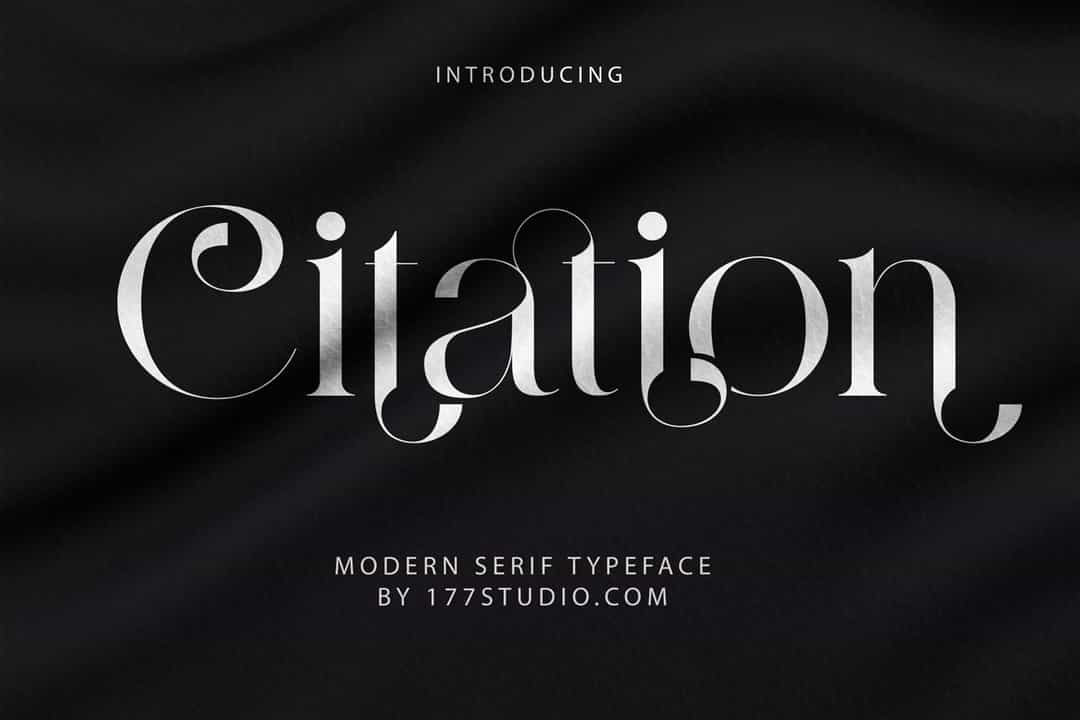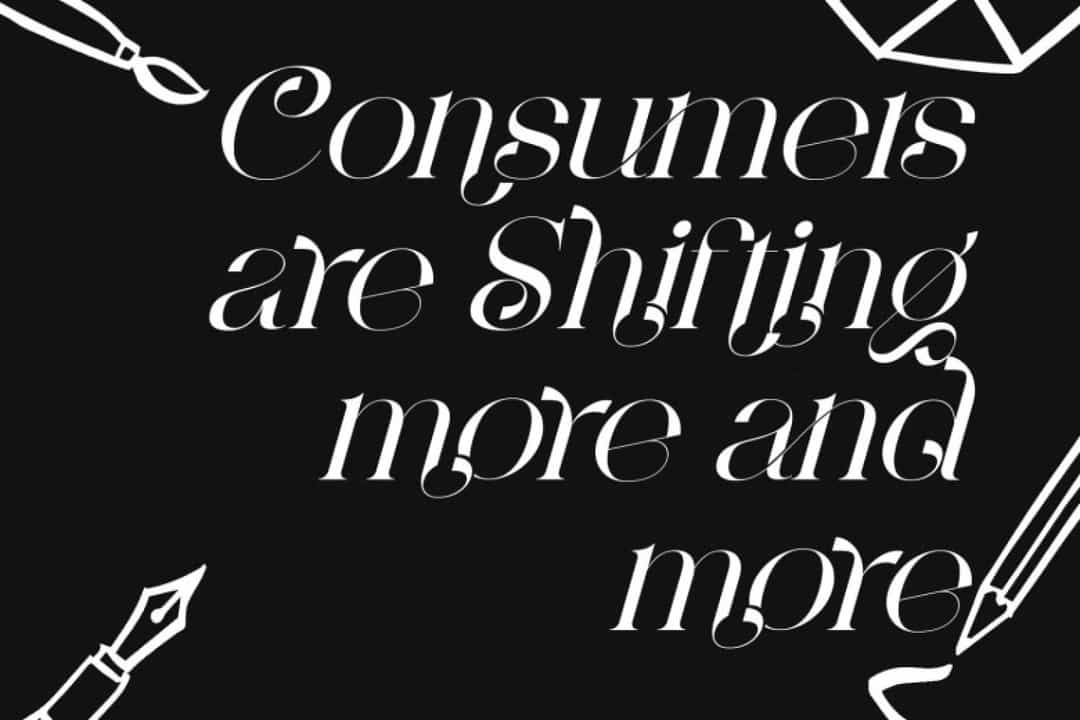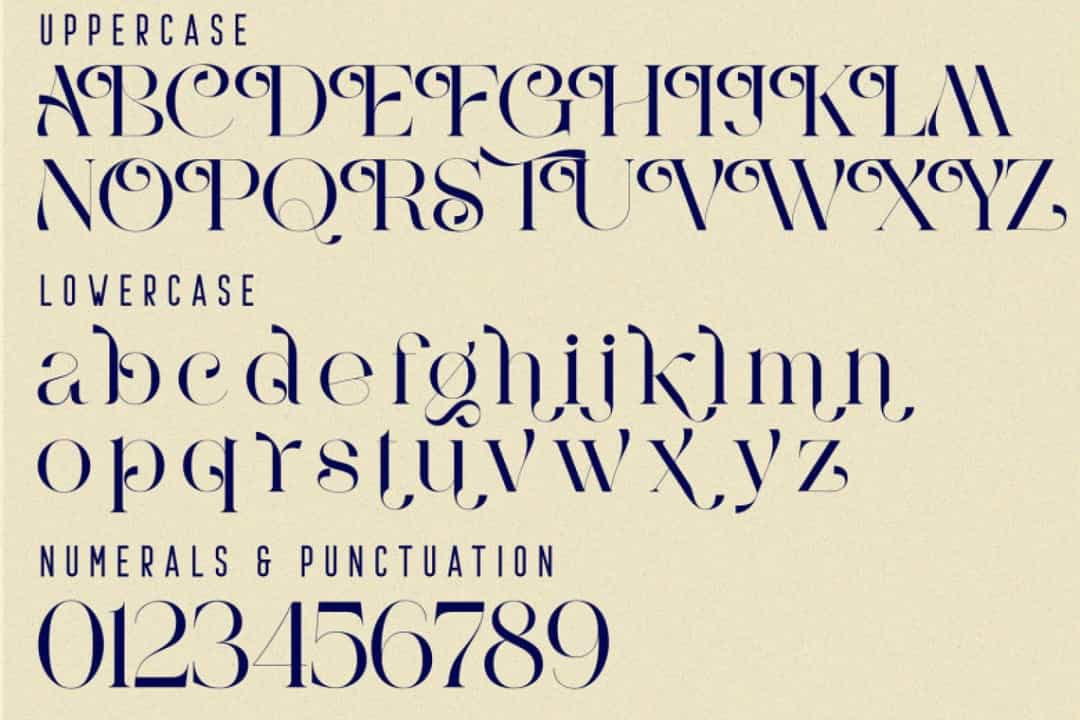
Citation is a contemporary yet classic serif typeface which boasts its own distinct style and modern appeal. Developed to meet the need for eye-catching and trendy designs, Citation comes equipped with various unique ligatures that help set it apart from others designs.